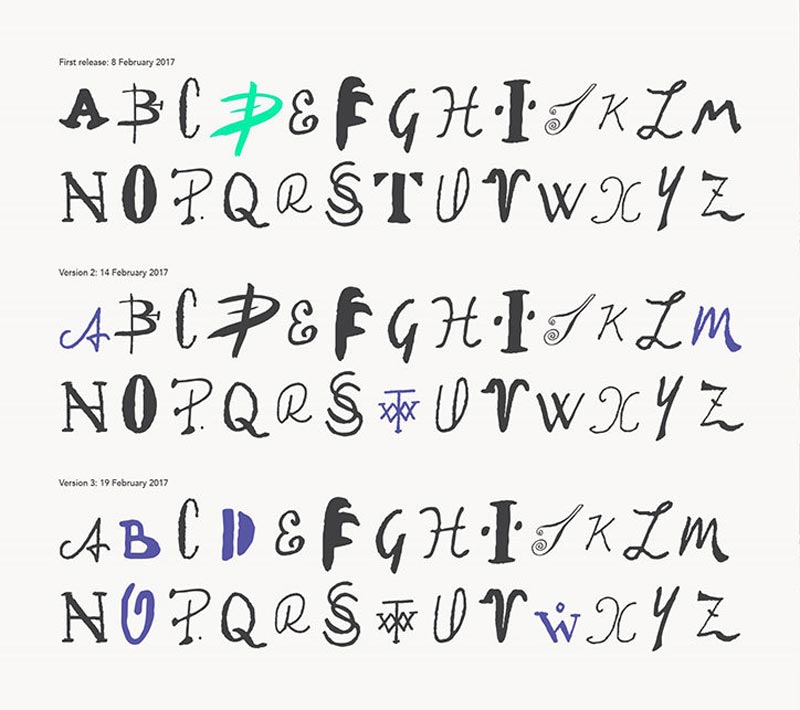
In the “unusual typefaces” family, a new kid has appeared: Army of Artists. The font was designed by Landor, a design consultancy with offices around the globe.
The concept font takes the first letter of famous artists’ signatures and uses it to represent one letter of the alphabet, a clever way to celebrate the artists’ individuality.